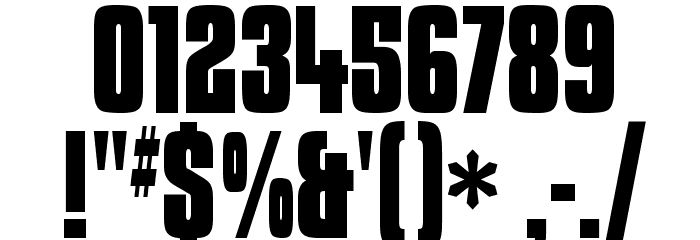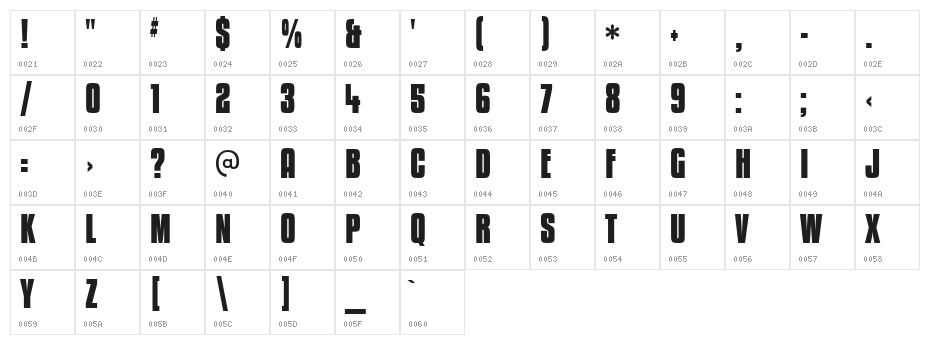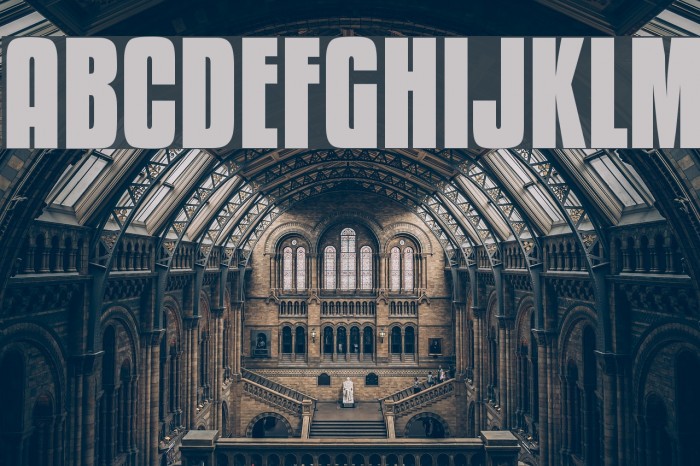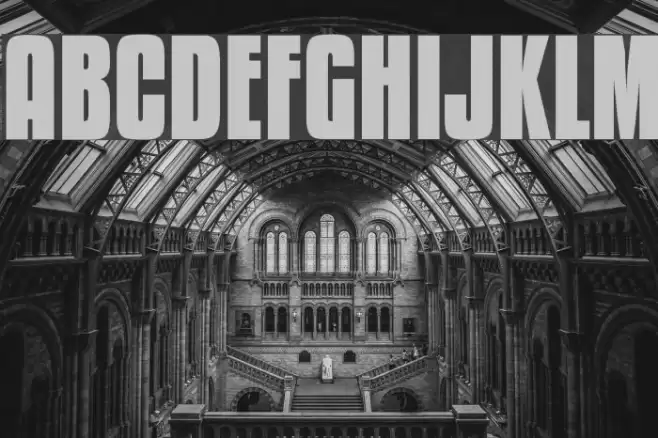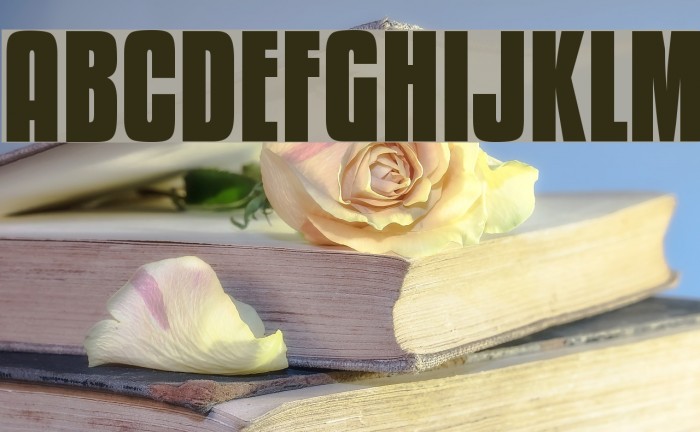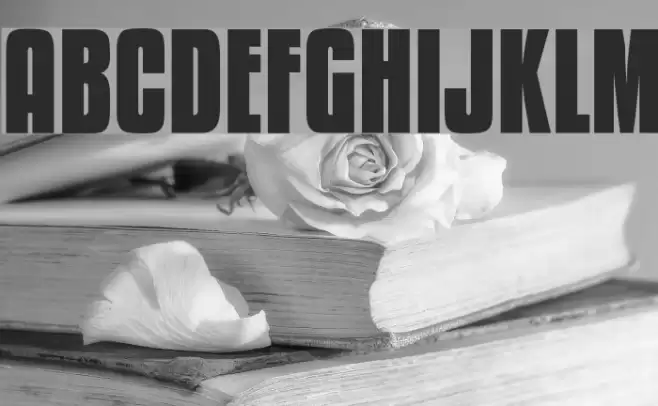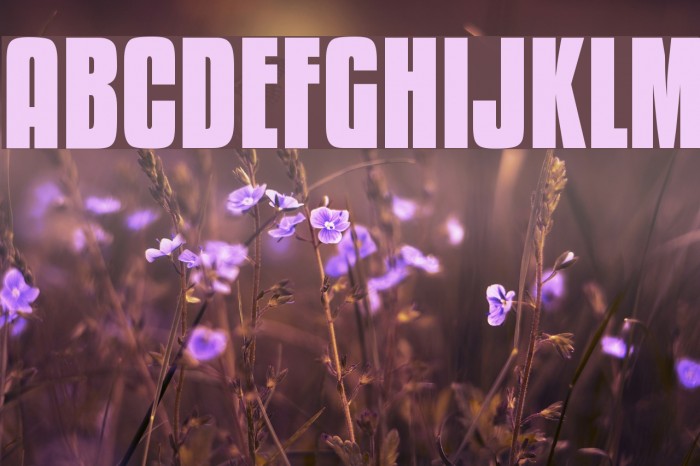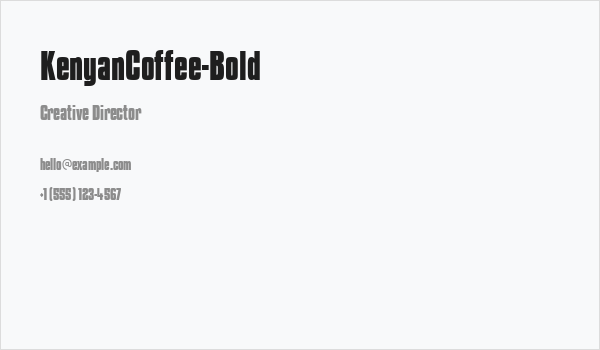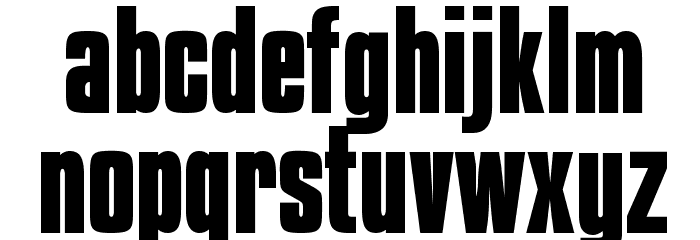
KenyanCoffee-Bold Font
KenyanCoffee-Bold Description
This font features a bold and impactful design, characterized by thick, uniform strokes that convey strength and confidence. The uppercase and lowercase letters maintain a consistent height, enhancing readability while adding a modern touch. The numerals and special characters are designed with the same boldness, ensuring a cohesive look across all text elements. Its strong presence makes it ideal for attention-grabbing headlines and titles. The font's geometric structure and clean lines contribute to its contemporary appeal, making it suitable for a variety of design projects.